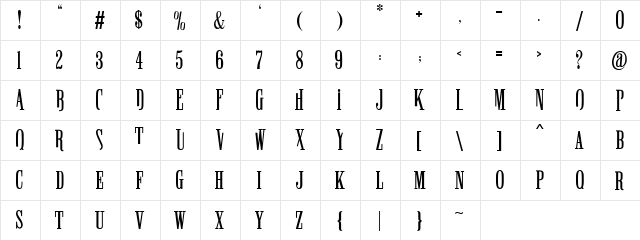
Winchester Cuts Regular
Design Context for Winchester Cuts Typeface
Winchester Cuts is a composed and adaptable typeface that performs quietly and consistently across a wide range of design contexts.